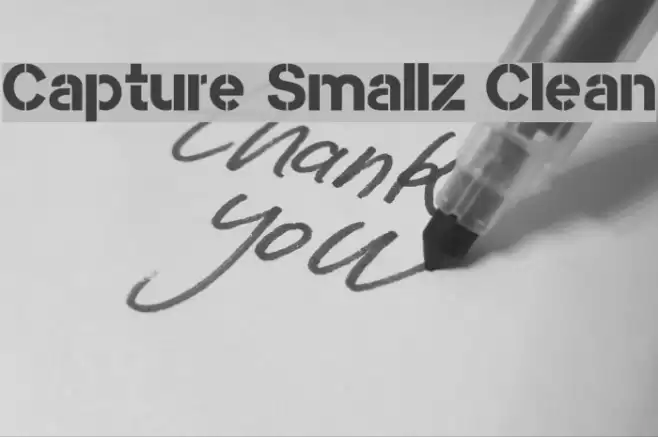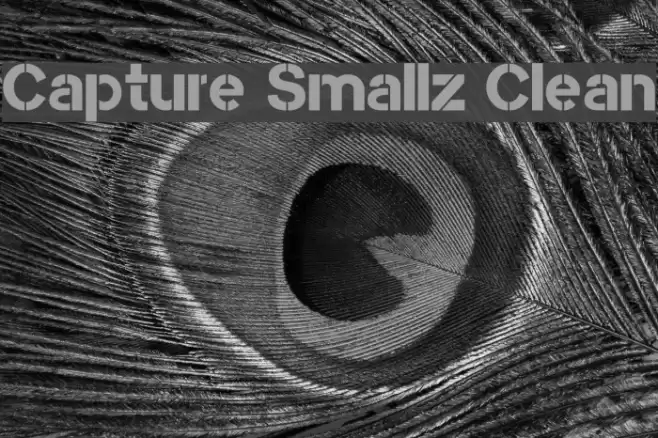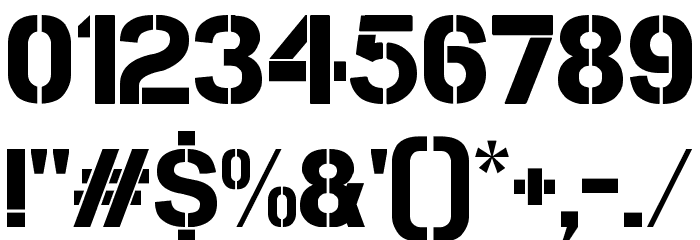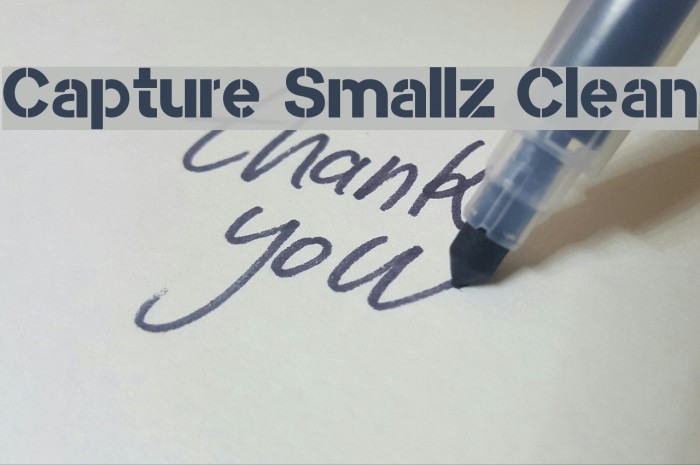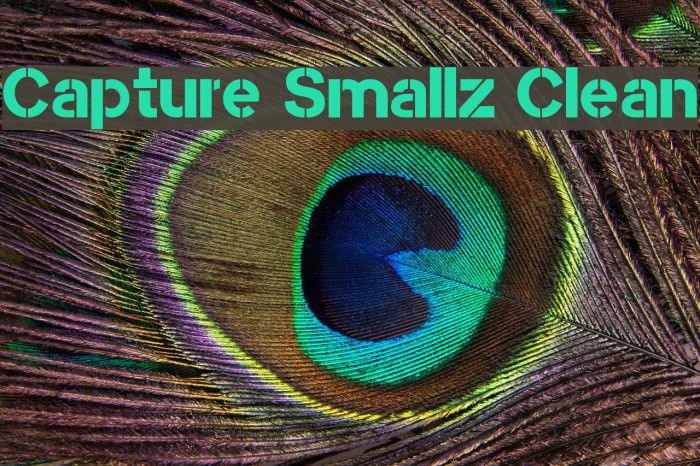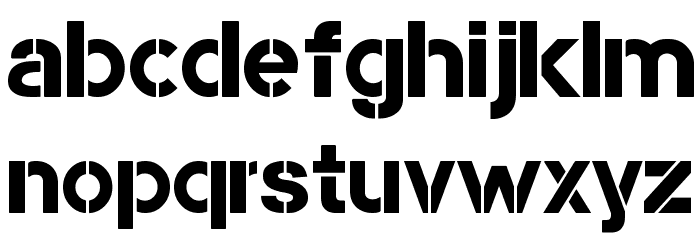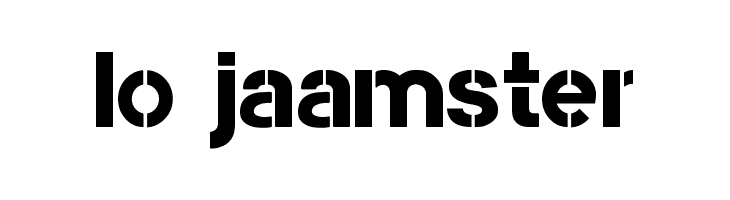
Capture Smallz Clean Font
Capture Smallz Clean Description
This font features a bold and geometric design with a strong emphasis on symmetry and balance. The characters are constructed with thick strokes and sharp angles, giving it a modern and assertive appearance. The uppercase letters are particularly striking, with a uniform height and width that create a cohesive look. The lowercase letters maintain the boldness of the uppercase, while offering a slightly softer edge. Numbers and special characters are consistent with the overall style, ensuring a seamless integration across different uses. The font's distinct style makes it ideal for impactful headlines and branding projects.
A bold, geometric font with strong symmetry and modern appeal from Uncategorized fonts.